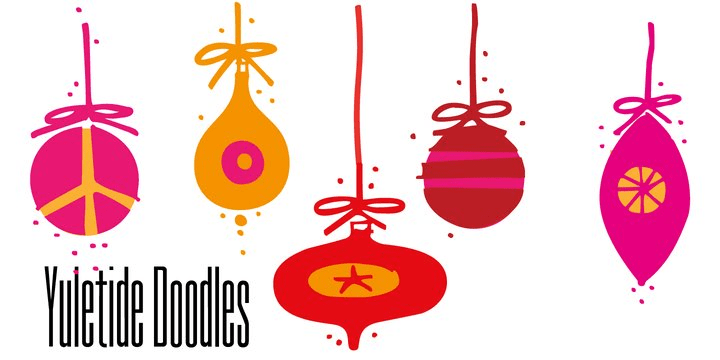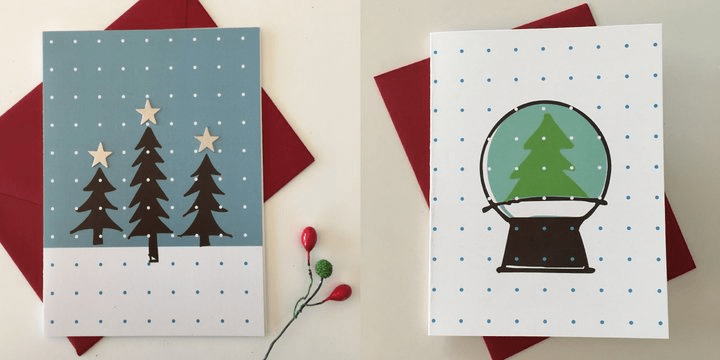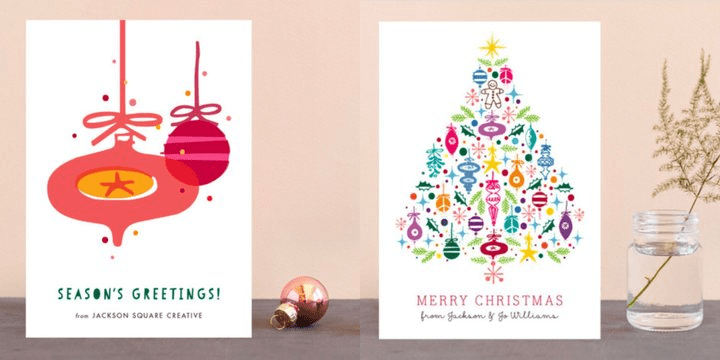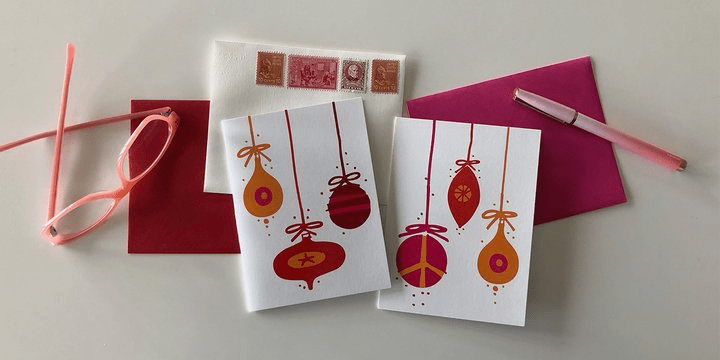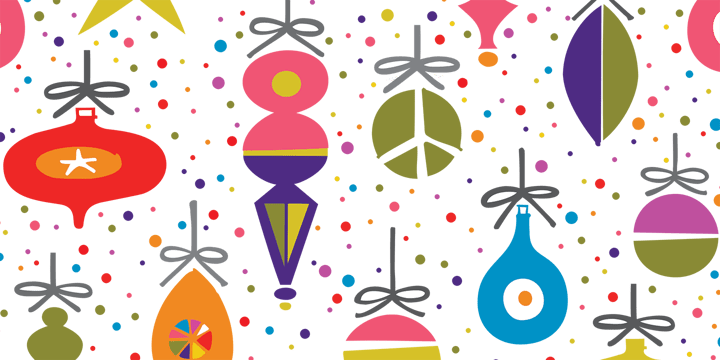
About Yuletide Doodles
Yuletide Doodles is the perfect font for that quickie Christmas party flyer, menu, or invitation. Or make your own gift tags. The uses are endless. This font includes gifts, ornaments, snow globe, snow man, holly, olive branch, lots of trees and stars,…